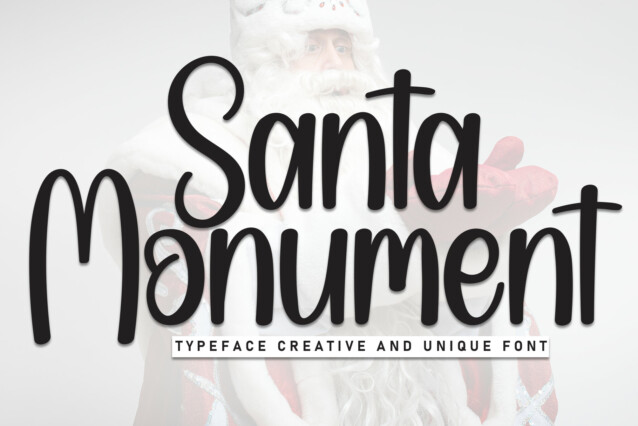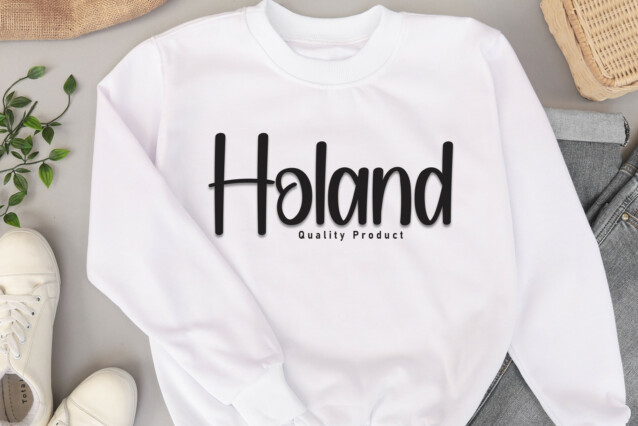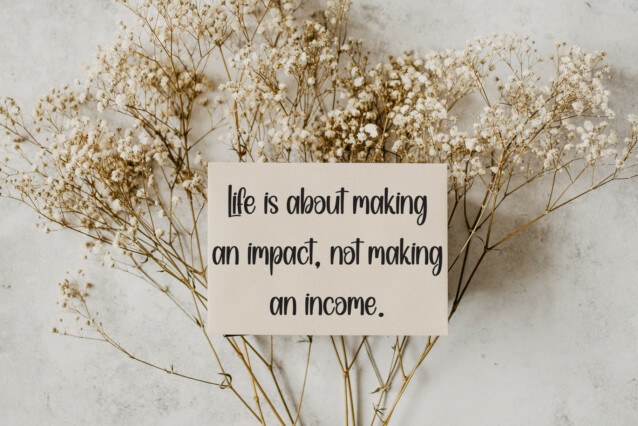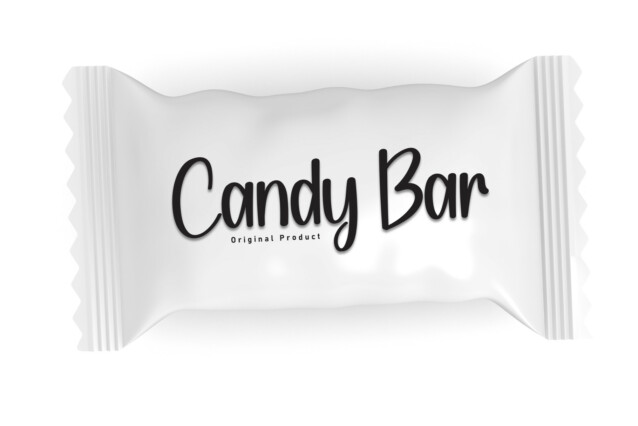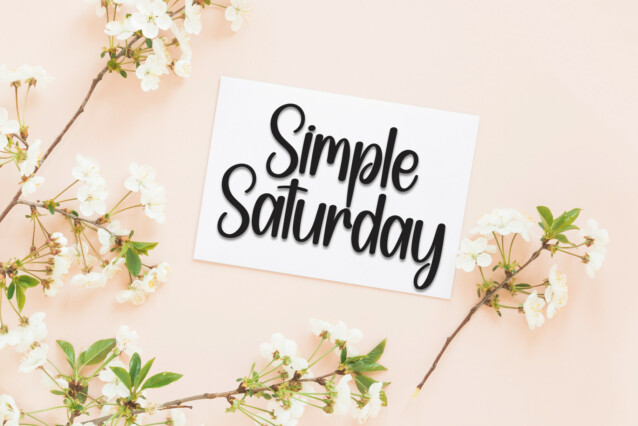
Santa Monument Script Font is a sweet and friendly handwritten display font. Cute and fun, this font is ideal for writing wedding invitations, cards, or any other design that might need a playful touch!